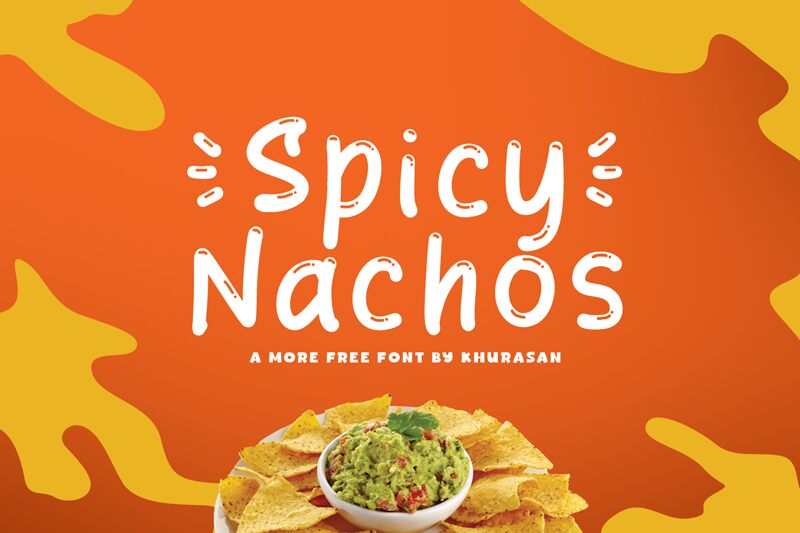
Spicy Nachos
Spicy Nachos, a playful and whimsical display font by Khurasan, adds a delightful touch to any project. With its semi-light weight, this cartoon-inspired typeface is perfect for creating eye-catching headlines, logo designs, and packaging.
Its bouncy letterforms and unique character make it an excellent choice for children's books, food-related projects, or anything that needs a dash of fun and personality. Let Spicy Nachos bring your designs to life with its deliciously vibrant and animated style!